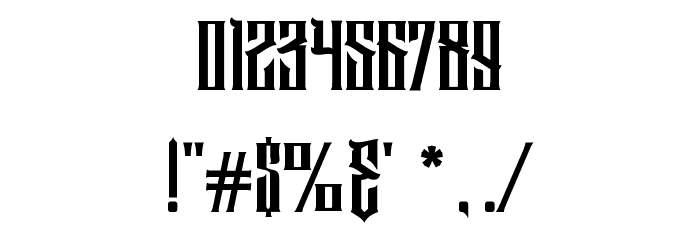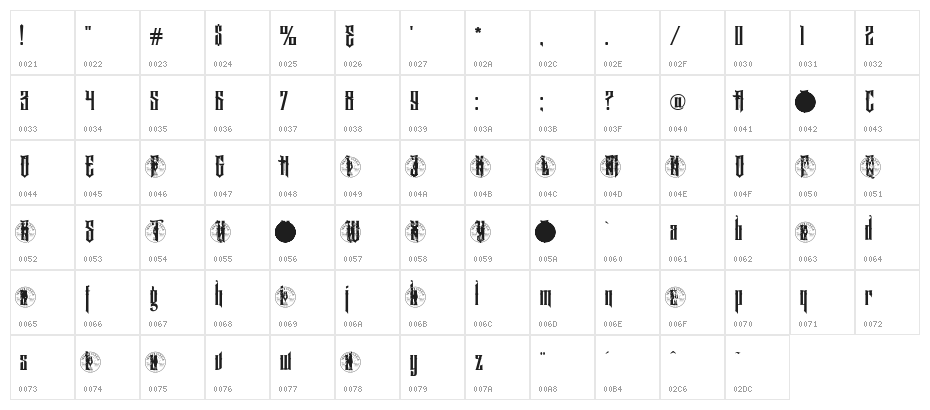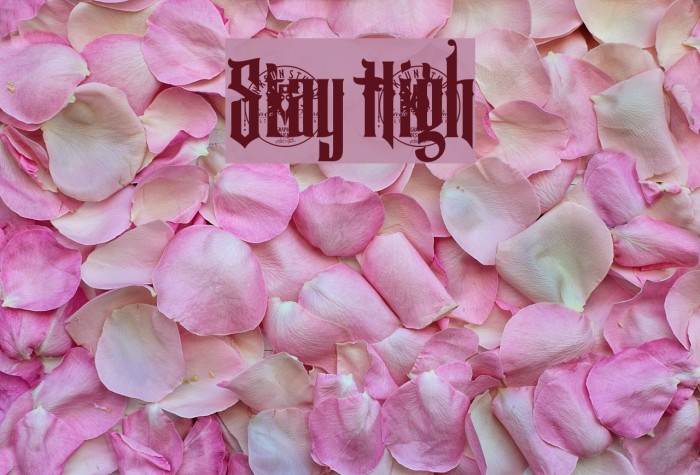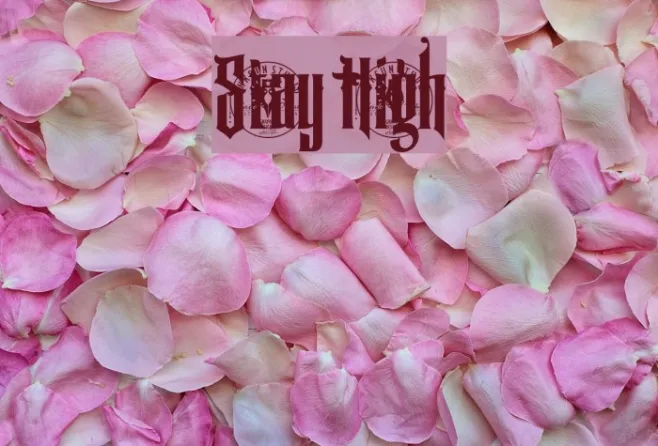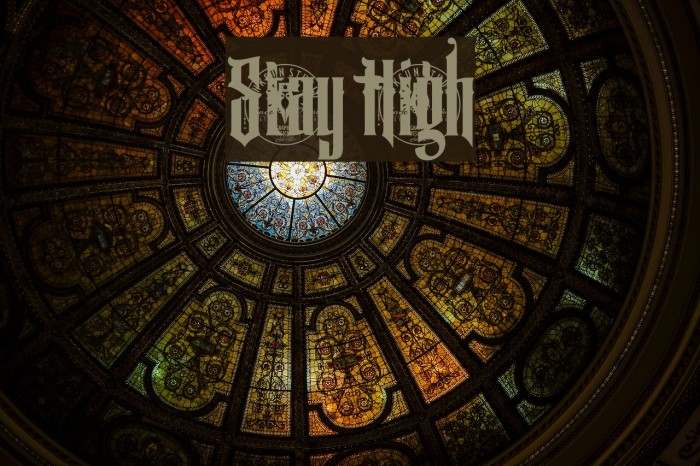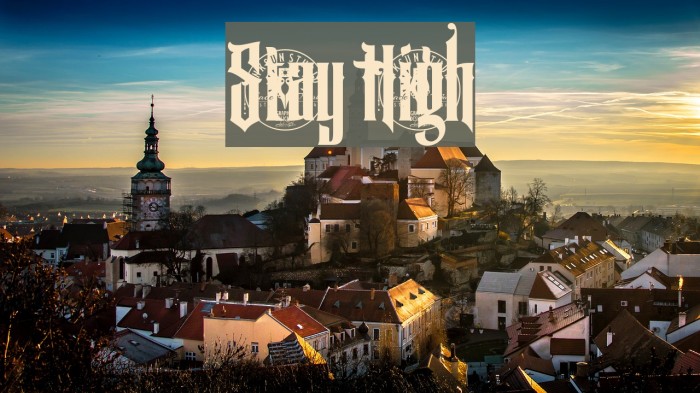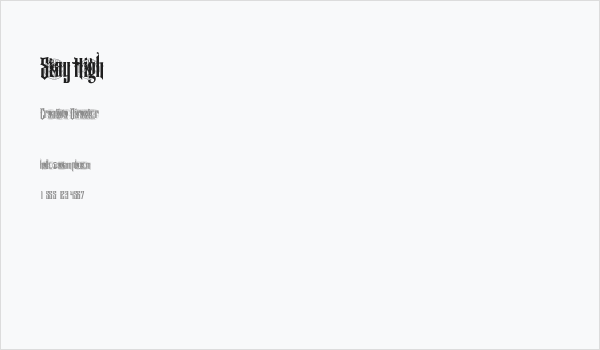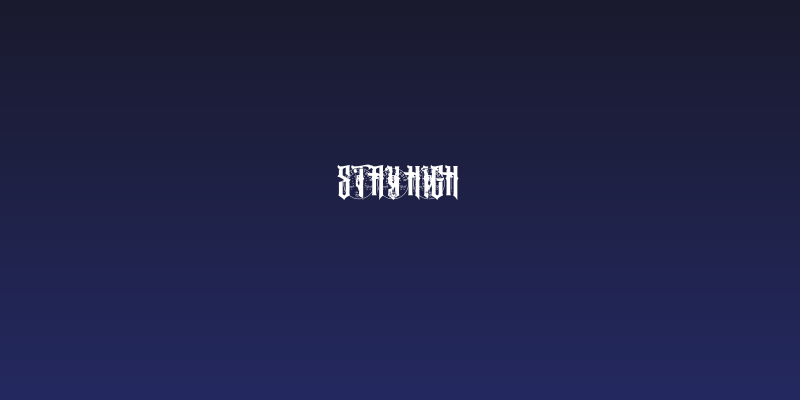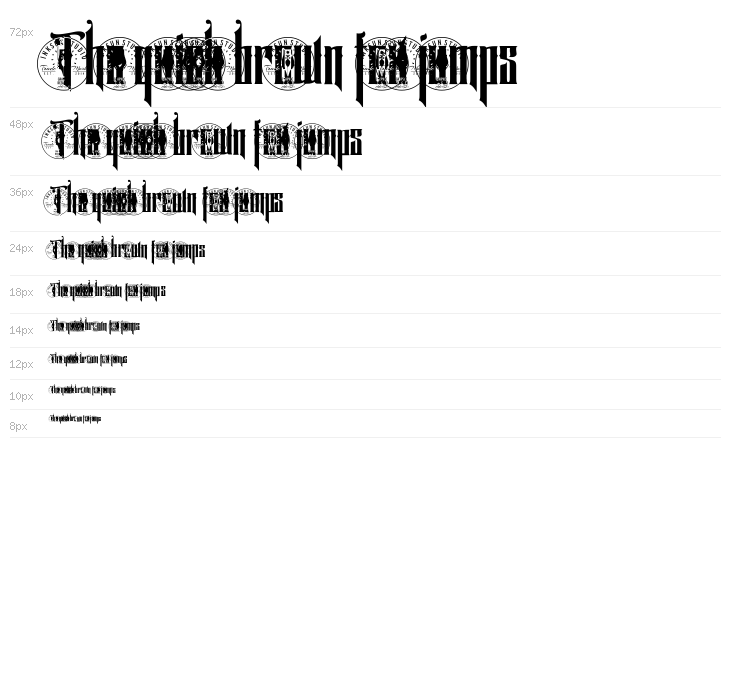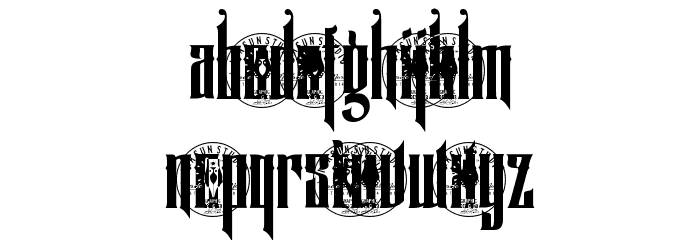
Stay High Font
Stay High Description
This font exhibits a bold and striking blackletter style, characterized by its intricate and ornate letterforms. The uppercase letters are tall and narrow, with sharp, angular strokes that give them a dramatic and gothic appearance. The lowercase letters maintain the same level of detail, with elongated ascenders and descenders that enhance the font's medieval aesthetic. Numbers and special characters are designed to match the overall style, featuring similar angular and decorative elements. The font's high contrast between thick and thin strokes adds to its visual impact, making it suitable for projects that require a historical or vintage touch.
| Overall Style | Gothic, Vintage |
| Proposed Projects | Ideal for use in tattoo designs, gothic-themed posters, album covers, and historical event invitations. |